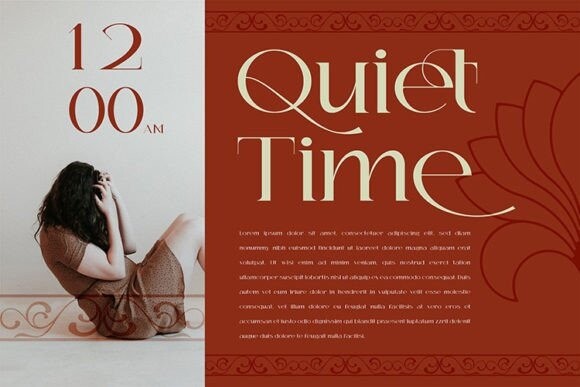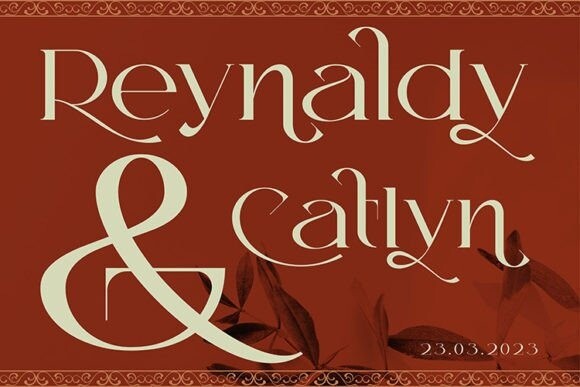
GIREFELYN Font
GIREFELYN Font, is an elegant serif font that exudes sophistication and refinement. Its thin, elongated serifs and clean lines create a graceful appearance that’s perfect for luxury branding, editorial design, and high-end print materials. With a variety of weights and styles available, Girefelyn offers versatility and versatility.